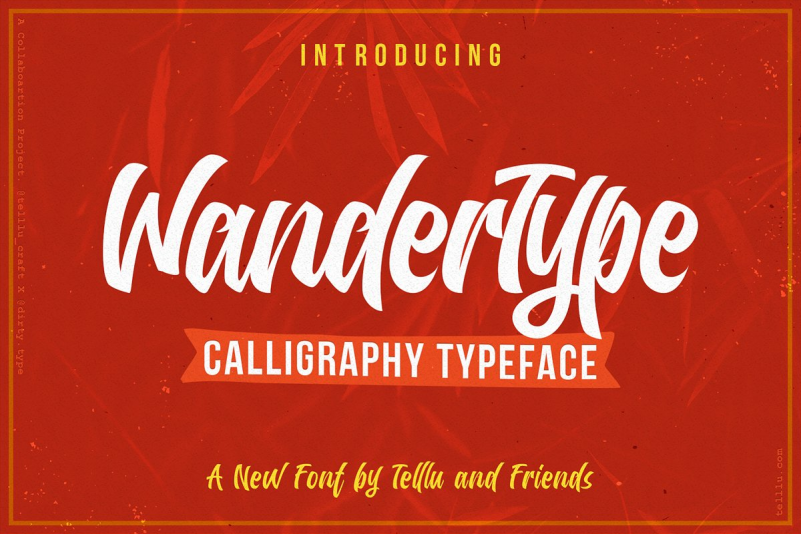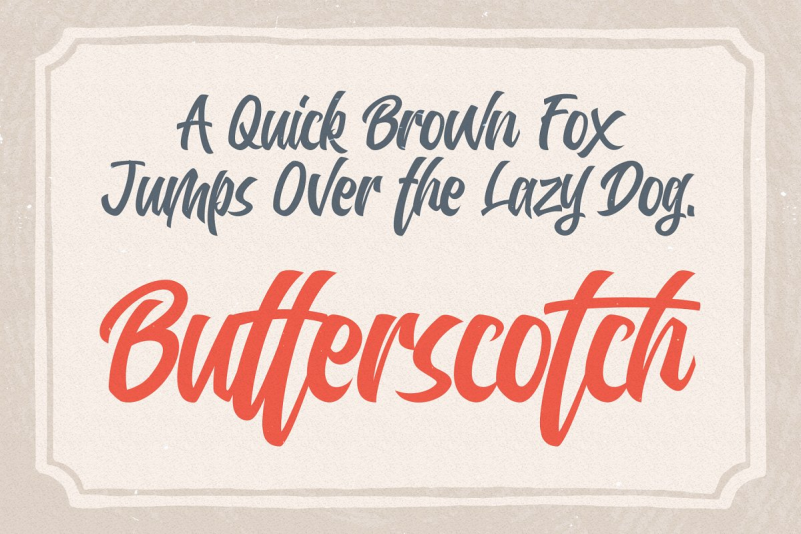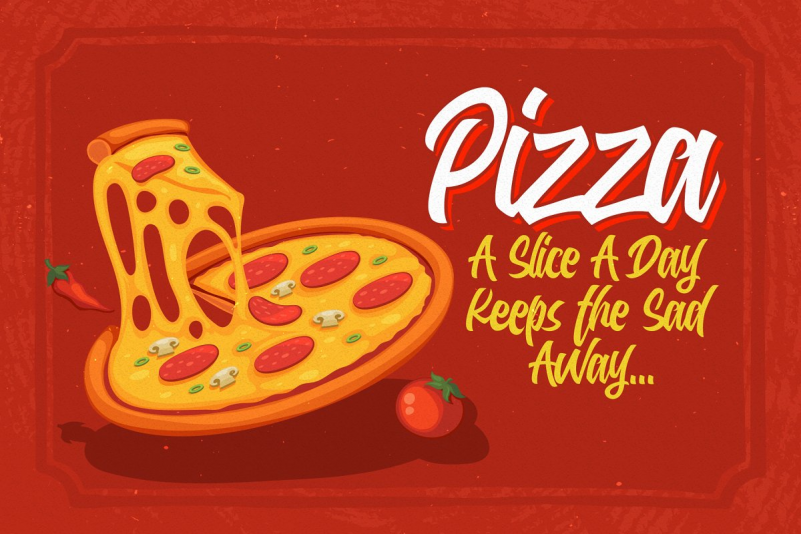
WanderType Font
WanderType is a handcrafted calligraphy typeface, our second collaboration with Dimas @dirty.type Aditya. A tallented lettering artist from Malang, the second largest city in East Java, Indonesia. Originally made by hand, with strong brush strokes delivered a really solid impressions of typeface. But yet combined with gently movement, WanderType is not only solid, but also brings dinamic personality to your writings. Very suitable to use on any printing projects such as poster, flyer, magazine, apparel, social media, also advertorial purposes. WanderType also good to use as logotype, branding, advertising, and any promotional media.